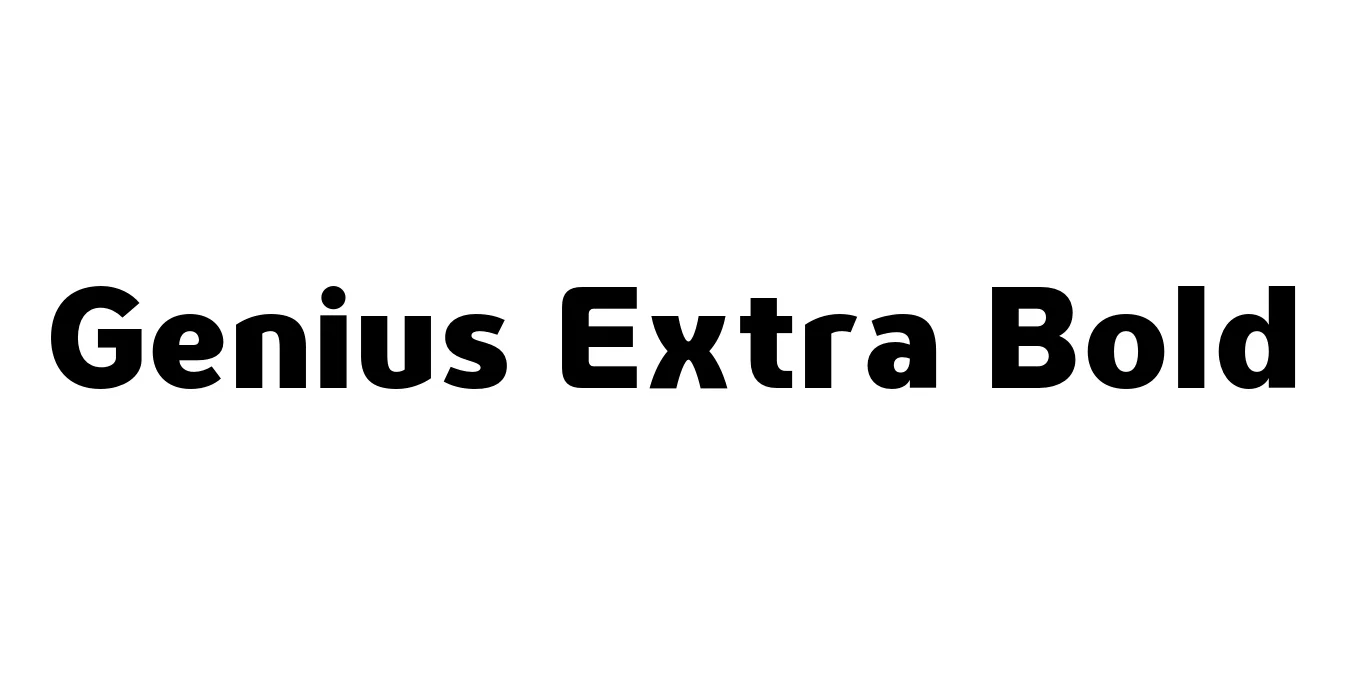
Genius Extra Bold
Designed by Stelian Micu
Genius Extra Bold is a powerhouse typeface within the broader Genius family, a contemporary geometric sans-serif designed for high impact and clarity. Created to bridge the gap between technical precision and humanistic warmth, this weight emphasizes heavy strokes and tight apertures, making it an ideal choice for bold headlines and modern branding initiatives.
Developed with versatility in mind, the Genius Extra Bold variant excels in digital environments where readability is paramount. Its balanced proportions and clean geometry allow it to stand out in high-resolution displays, while its robust construction ensures it maintains legibility even when used in demanding print layouts or large-scale signage.
Genius Extra Bold Best Uses
Perfect for grabbing attention in editorial layouts and posters.
Ideal for logo design and visual identity systems that require a strong presence.
Great for high-impact graphics and thumbnails on platforms like Instagram and YouTube.
Excellent for hero sections of websites needing a professional and bold look.